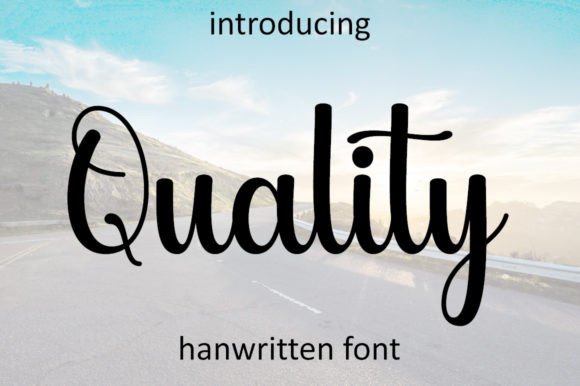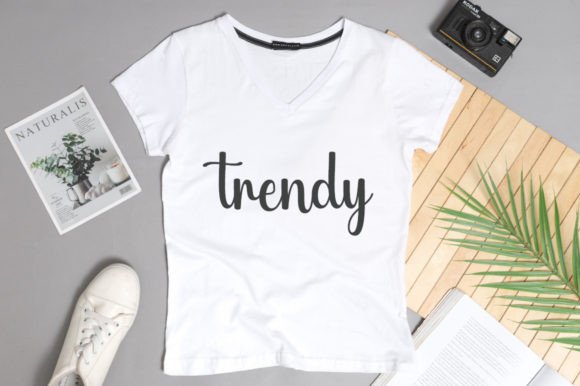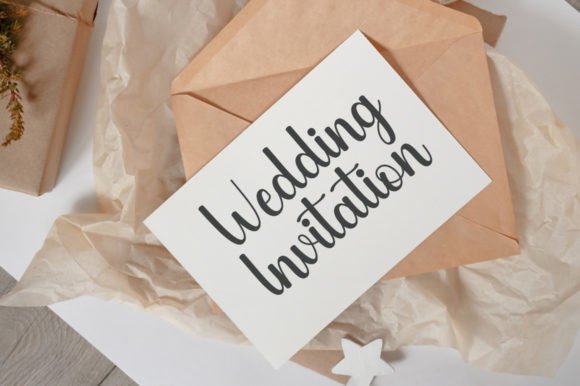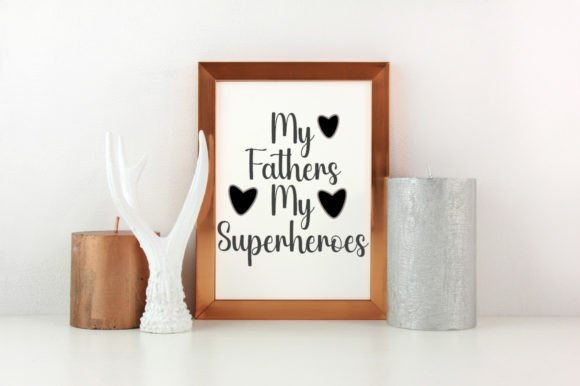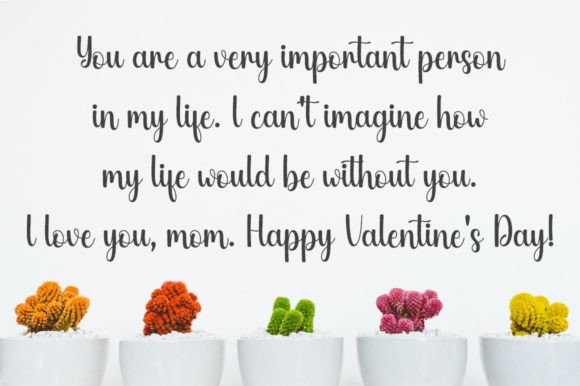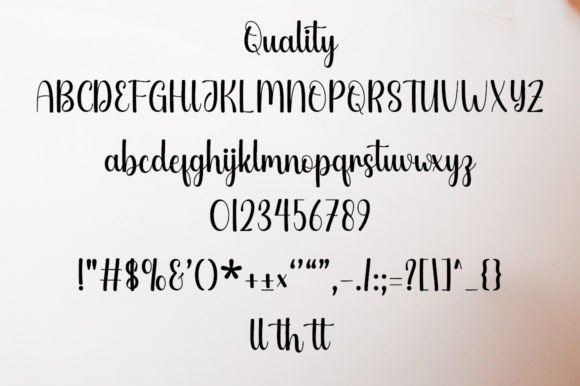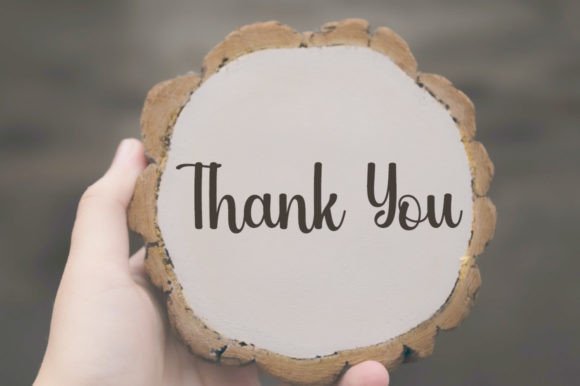
Quality
About Quality
Quality is a stylish and elegant handwritten script font. It is the best choice for creating eye-catching logos, branding, and quotes. Every letter has a unique and beautiful touch, which will make your design come alive!